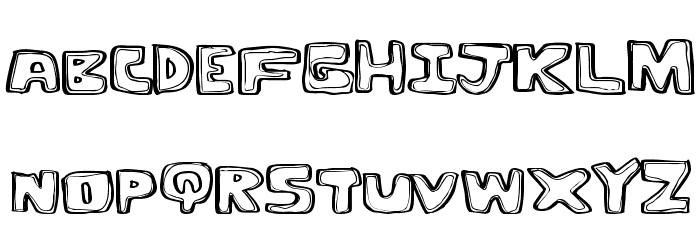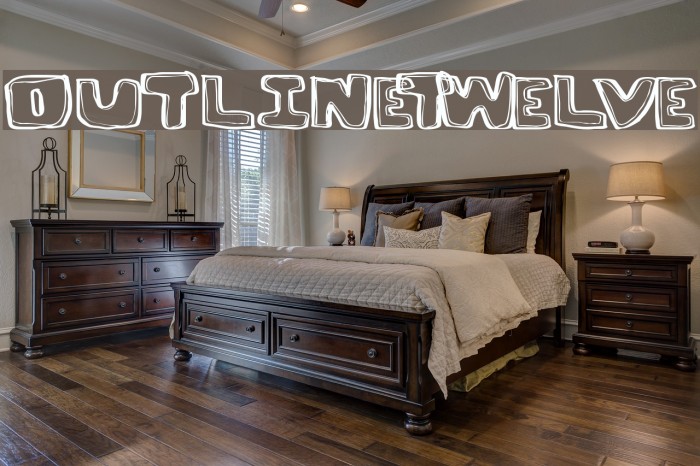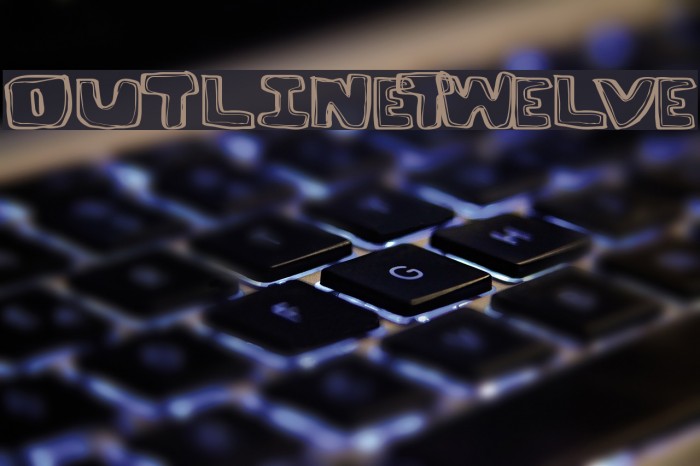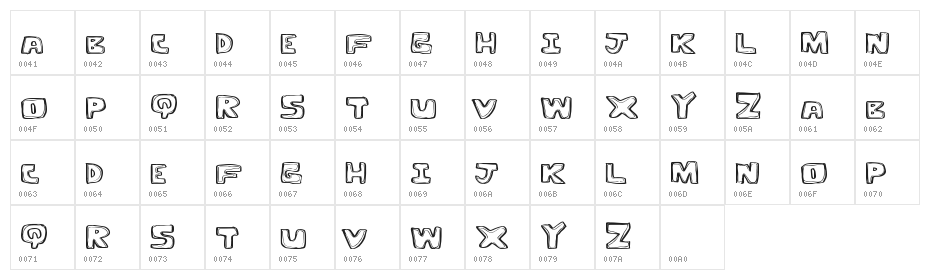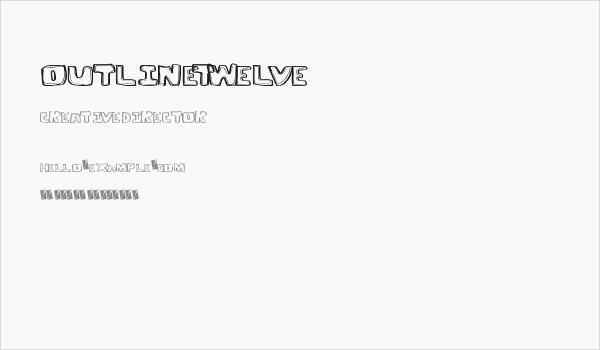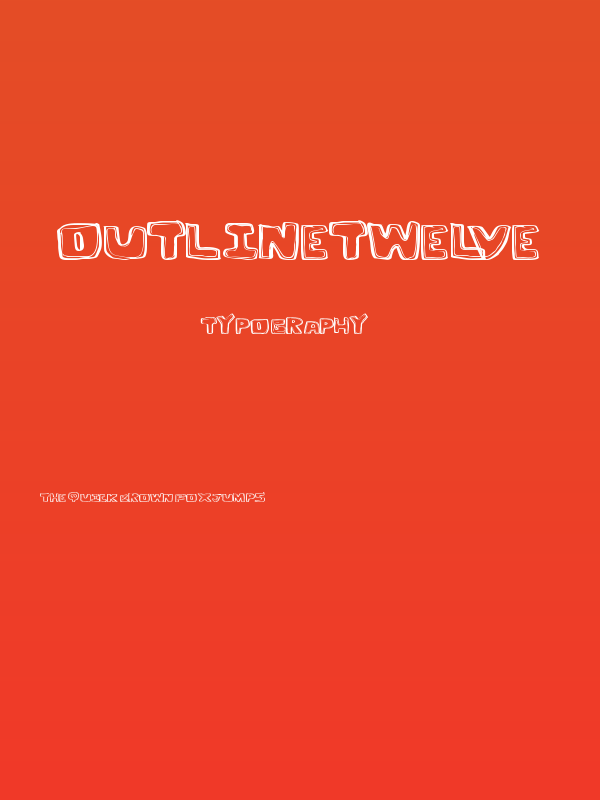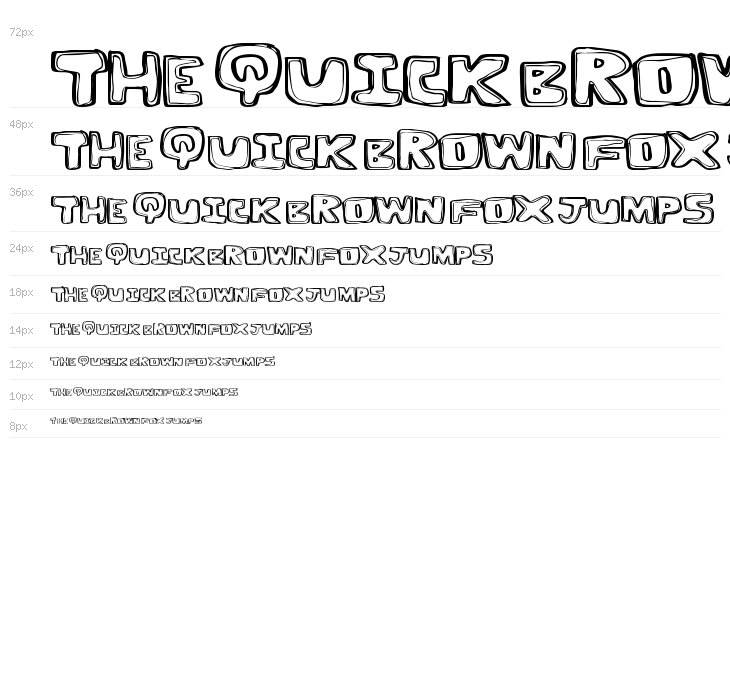
OutlineTwelve Font
This font features a bold, playful outline style that gives each character a distinct, hand-drawn appearance. The uppercase and lowercase letters maintain a consistent width, creating a cohesive look across the alphabet. The characters are outlined with a thick, uniform stroke, enhancing their visibility and making them suitable for eye-catching designs. The numbers and special characters follow the same outlined style, ensuring uniformity throughout the font set. This font's unique style makes it ideal for creative projects that require a fun and informal touch.
A bold, playful outline font with a hand-drawn appearance.
- Proposed Projects: Ideal for children's book covers, playful posters, and creative branding projects.
- Overall Style: Playful, Creative